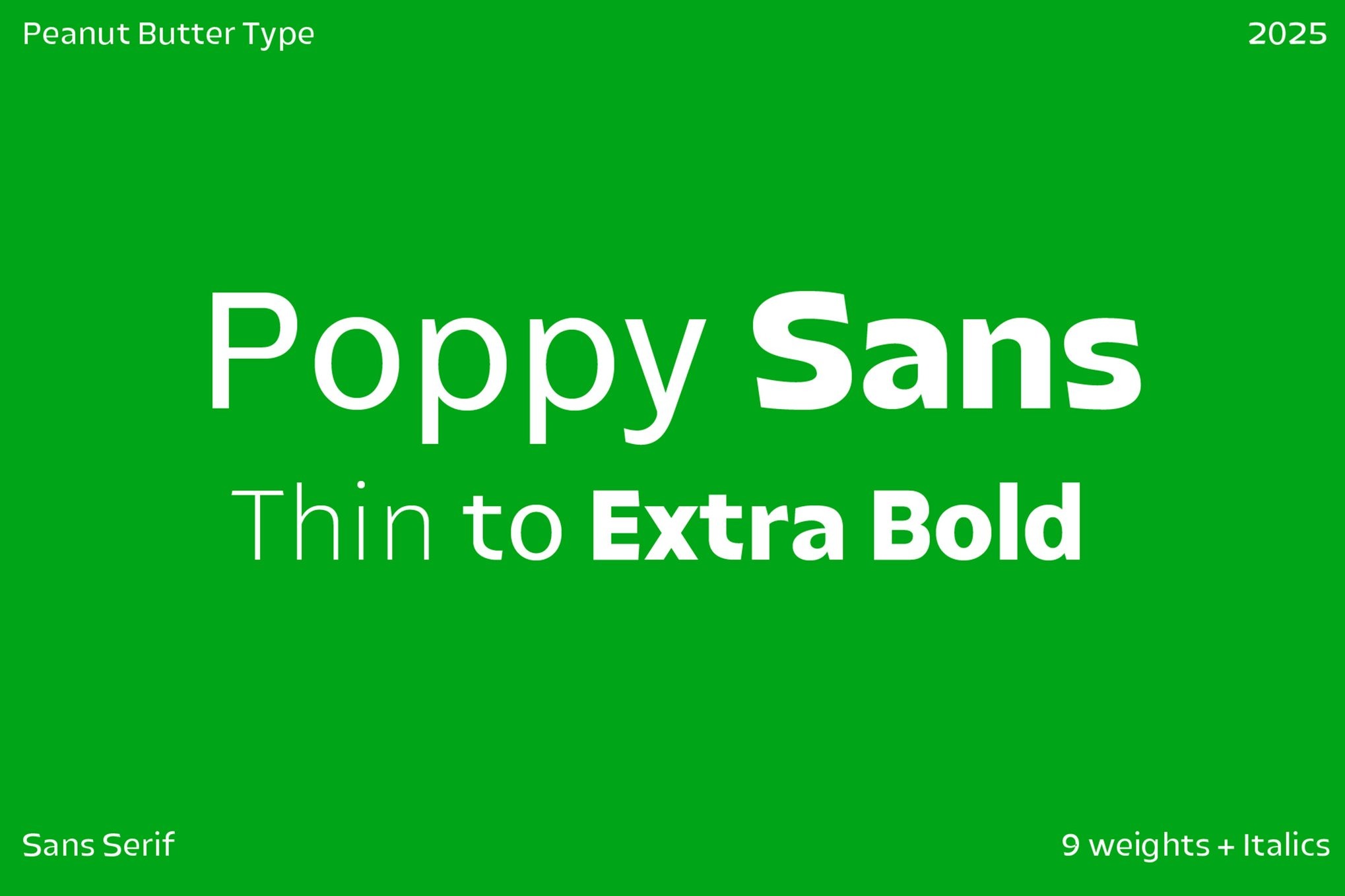
Poppy Font Family
Poppy Font Family is a humanist, playful sans-serif typeface that blends warmth, clarity, and charm. Its letterforms are inspired by the natural flow of handwriting, giving it a more organic and approachable quality than more rigid geometric or grotesque sans-serifs. The rounded shapes and gentle curves create a friendly, lively personality that feels casual yet refined. This balance of structure and spontaneity makes Poppy Sans particularly versatile—it’s equally comfortable in digital interfaces, children’s books, or branding projects that aim to convey friendliness and authenticity. Its open counters and generous spacing enhance legibility, while the subtle quirks in its design add a sense of creativity and individuality. Overall, Poppy Sans captures the essence of modern humanist design: approachable, expressive, and full of personality without ever feeling overwhelming or gimmicky.